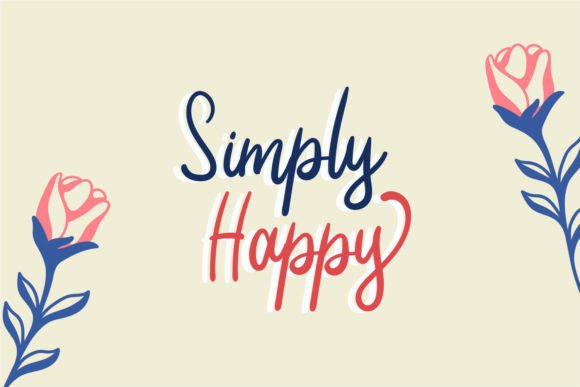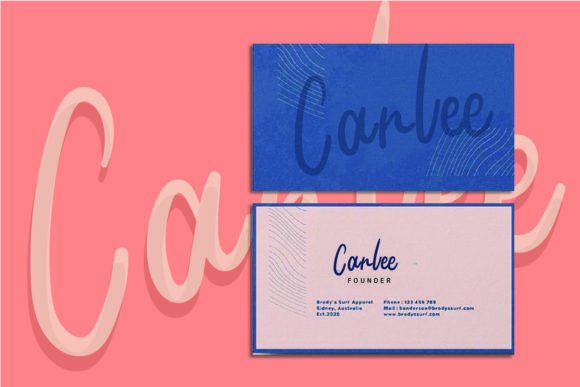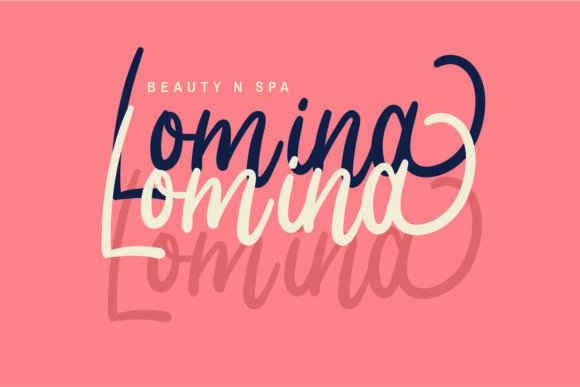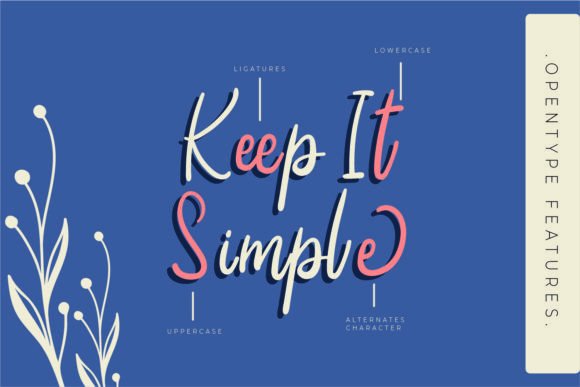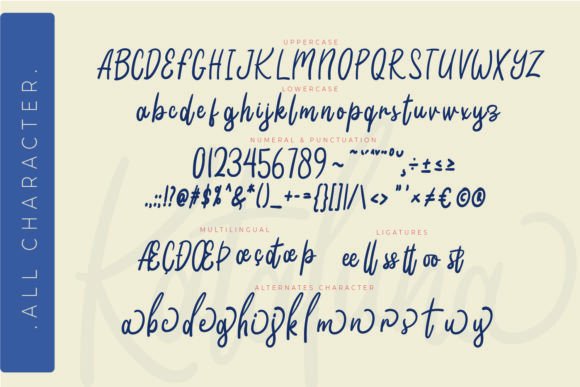
Kataluna Font – Free Download
Introduction to Kataluna Font
Kataluna is a sweet and natural-looking handwritten script font.
Key Features of Kataluna Font
Why Choose Kataluna Font?
Kataluna Font offers exceptional quality and versatility, making it a valuable addition to your design toolkit. Whether you’re creating for personal projects or commercial use, Kataluna Font delivers professional results.